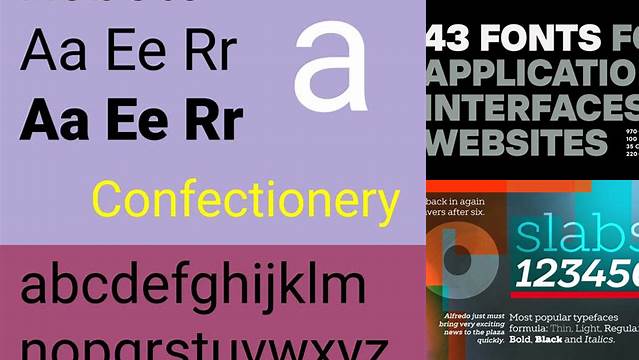
Free Fonts Like Roboto: Best Similar Alternatives
Hey guys! If you're on the hunt for some fantastic, free fonts similar to Roboto, you've landed in the right spot. Roboto, with its clean lines and geometric structure, is a super popular choice for web and print design. But sometimes, you need a little variety, right? Maybe a font with a slightly different vibe, or perhaps you're looking to avoid font fatigue. Whatever your reason, we're diving deep into the world of Roboto alternatives that won't cost you a dime. We'll explore a range of fonts that capture Roboto's essence while bringing their unique flair to the table. So, buckle up and let's get font-astic!
Why Look for Roboto Alternatives?
Okay, so Roboto is awesome, no doubt. But why even bother looking for alternatives? Well, there are several compelling reasons. First off, variety is the spice of life, and the same goes for typography! Sticking with the same font all the time can make your designs feel a bit stale. Using different fonts can inject personality and keep your projects fresh and engaging. Think about it – would you wear the same outfit every single day? Probably not! The same principle applies to your design choices. Secondly, while Roboto is versatile, it might not always be the perfect fit for every project. Some fonts have a warmer feel, while others are more formal. Finding a suitable alternative allows you to fine-tune the tone and message of your design. For instance, a handwritten font might be perfect for a casual invitation, but it wouldn't work so well for a corporate report. Moreover, exploring different fonts can actually spark creativity. You might stumble upon a hidden gem that you absolutely love and that elevates your design to a whole new level. Plus, from a practical perspective, having a diverse font library can be a lifesaver. Imagine you're working on a project and Roboto just isn't playing nice with a particular software or platform. Having a backup option ensures you can keep the ball rolling without any hiccups. Ultimately, broadening your font horizons is about expanding your creative toolkit. It's about having more options, more flexibility, and more control over the visual language of your designs. So, let's dive into some fantastic, free alternatives to Roboto that will help you achieve just that!
Top Free Fonts That Capture the Roboto Vibe
Alright, let's get to the good stuff! We've scoured the internet to bring you a curated list of the top free fonts that capture the essence of Roboto. These fonts share Roboto's clean, modern aesthetic, making them excellent substitutes for your design projects. We'll explore their unique characteristics and discuss where they shine, so you can make the best choice for your needs. Let's get started!
1. Open Sans: The Versatile Workhorse
When it comes to free fonts similar to Roboto, Open Sans is often the first one that comes to mind, and for good reason. This font is a true workhorse, known for its exceptional legibility and clean, neutral appearance. Open Sans was designed by Steve Matteson, Type Director of Ascender Corp, and it's specifically optimized for print, web, and mobile interfaces. This makes it an incredibly versatile choice for a wide range of applications. One of the key strengths of Open Sans is its open and friendly feel. The slightly wider letterforms and generous spacing give it a sense of airiness and readability, even at small sizes. This is crucial for body text, where clarity is paramount. Think about reading a long article or email – you want a font that's easy on the eyes, and Open Sans delivers just that. Open Sans also boasts an impressive range of weights and styles, from light and thin to bold and extra-bold. This allows you to create a visual hierarchy within your designs and add emphasis where needed. You can use a lighter weight for body text and a bolder weight for headings, for example. This versatility is a major advantage, as it means you can use Open Sans for an entire project without feeling limited. Furthermore, Open Sans is a web-safe font, meaning it's widely supported across different browsers and operating systems. This is essential for web design, as you want to ensure your text displays correctly for all users. With Open Sans, you can rest assured that your message will be clear and legible, no matter the platform. In terms of aesthetics, Open Sans shares Roboto's clean, geometric structure but has a slightly softer, more humanistic touch. This makes it a great choice if you're looking for a font that's both modern and approachable. It works exceptionally well for websites, apps, documents, and presentations. Whether you're designing a sleek corporate website or a friendly blog, Open Sans is a reliable and elegant choice.
2. Lato: The Warm and Welcoming Option
If you're looking for a font that's friendly and approachable, Lato is an excellent contender in the world of free fonts similar to Roboto. Designed by Łukasz Dziedzic, Lato has a semi-rounded character that gives it a sense of warmth and openness. This subtle touch makes it stand out from more strictly geometric fonts while still maintaining a clean and modern look. The name